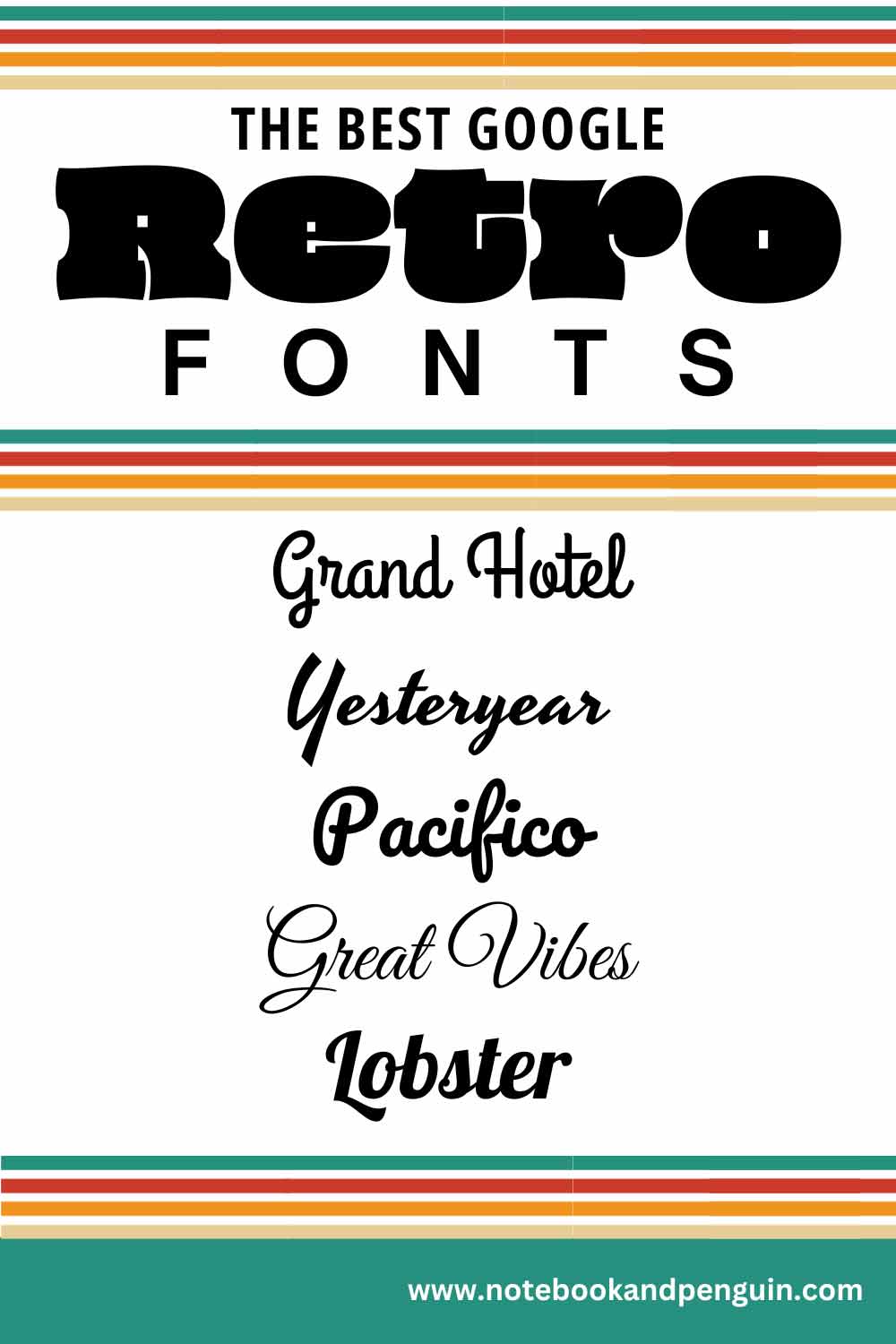
31 Retro Google Font Ideas For Vintage Vibes & Groovy Designs
Retro and vintage style fonts are an awesome way to capture the essence of the past while adding a modern twist to your journals, planners, and other designs. It’s no secret that retro and vintage styles have made a roaring comeback and what better way to create that retro feel than through the power of typography and some amazing Google Fonts!
The Google Fonts library has a massive collection of typefaces and fonts that is an incredible resource to use if you are looking for the perfect vintage fonts that evoke the spirit of yesteryears. And the best part is that these fonts are free to download and use!
In this article, I’ve collected and summarized all the best retro Google fonts that are available so that you have a quick reference to font ideas that will transport you back to the days of disco and flower power with iconic font styles from the 1950s, 1960s, 1970s, and 1980s. Use them in Google Docs, in your journal, on your website, or even just for a poster or a groovy birthday invitation design.
Top Retro Google Fonts for Vintage Designs
Let’s jump in and take a look at some of the best retro Google fonts in the Google Fonts collection!
Yesteryear
Yesteryear is a vintage-inspired retro font that has cursive styling.
Yesteryear font example
Pacifico
Pacifico has a fluid handwritten feel that captures the style of vintage diners.
Pacifico font example
Playball
Playball has a 70s feel to it that captures the spirit of old sports teams!
Playball font example
Great Vibes
Great Vibes is a classic retro font with a flowing cursive style.
Great Vibes example
Grand Hotel
Grand Hotel has an old-world charm to it that adds a touch of vintage glamour to any design.
Grand Hotel Example
Kavoon
The Kavoon font has a distinctive 60s retro feel to it which is easy to read.
Kavoon 60s font example
Ranchers
Ranchers has an old American charm which is a great choice if you want to create a vintage Western vibe.
Ranchers font example
Condiment
Condiment is a fun eye-catching nostalgic font that you will sometimes see used in vintage sign design and packaging.
Condiment example
Mrs Sheppards
The Mrs Sheppards font is a retro script font that has uneven letters with a unique old American charm.
Mrs Sheppards font
Chicle
Chicle is a bold and chunky retro font that is fun and easy to read.
Chicle example
Oi
The Oi Google font has a very distinctive look to it with its unique bubble-shaped letters which makes it the perfect 60s font reminiscent of hippie-style flags, posters, album covers, and all things flower power!
Oi Google font
Lobster
Lobster is a very popular retro Google font that has a funky charm to it.
Lobster Google font example
Yellowtail
Yellowtail is another 60s-style script font with flowing and fluid strokes.
Yellowtail example
Fascinate
Fascinate is a 70s-style font that comes in two different styles: Fascinate and Fascinate Inline.
Fascinate example
Fascinate Inline 70s font example
Purple Purse
Purple Purse has a funky feel to it and I can see it being used in fun hippie-type designs.
Purple Purse example
Atomic Age
Atomic Age is described as a retro Google font that “pays homage to the iconic typography of the 80s and 90s. With its bold and geometric letterforms, it captures the futuristic and optimistic spirit of the mid-20th century.”
Atomic Age 80s style font example
Cherry Cream Soda
Cherry Cream Soda is a fun and casual vintage font with a handwritten style.
Cherry Cream Soda example
Cherry Bomb One
Cherry Bomb One is bold with thick strokes and a funky style!
Cherry Bomb One example
Notable
Notable is bold and distinctive and you will sometimes see it being used in vintage newspapers and headlines.
Notable Vintage Font
Special Elite
Special Elite is a typewriter-inspired Google font with a military feel to it.
Special Elite typewriter font
Press Start 2P
Press Start 2P mimics the style of pixelated old-school video games from the 80s and 90s.
Conclusion
Retro-style Google Fonts are the perfect way to add a touch of nostalgia, timeless charm, and personality to any design. Whether you’re aiming for the 70s vibe, vintage Hollywood glamor, 60s hippie style, or a funky 80s look, these vintage fonts capture the essence of bygone eras and allow you to create a memorable sense of nostalgia that appeals to many.